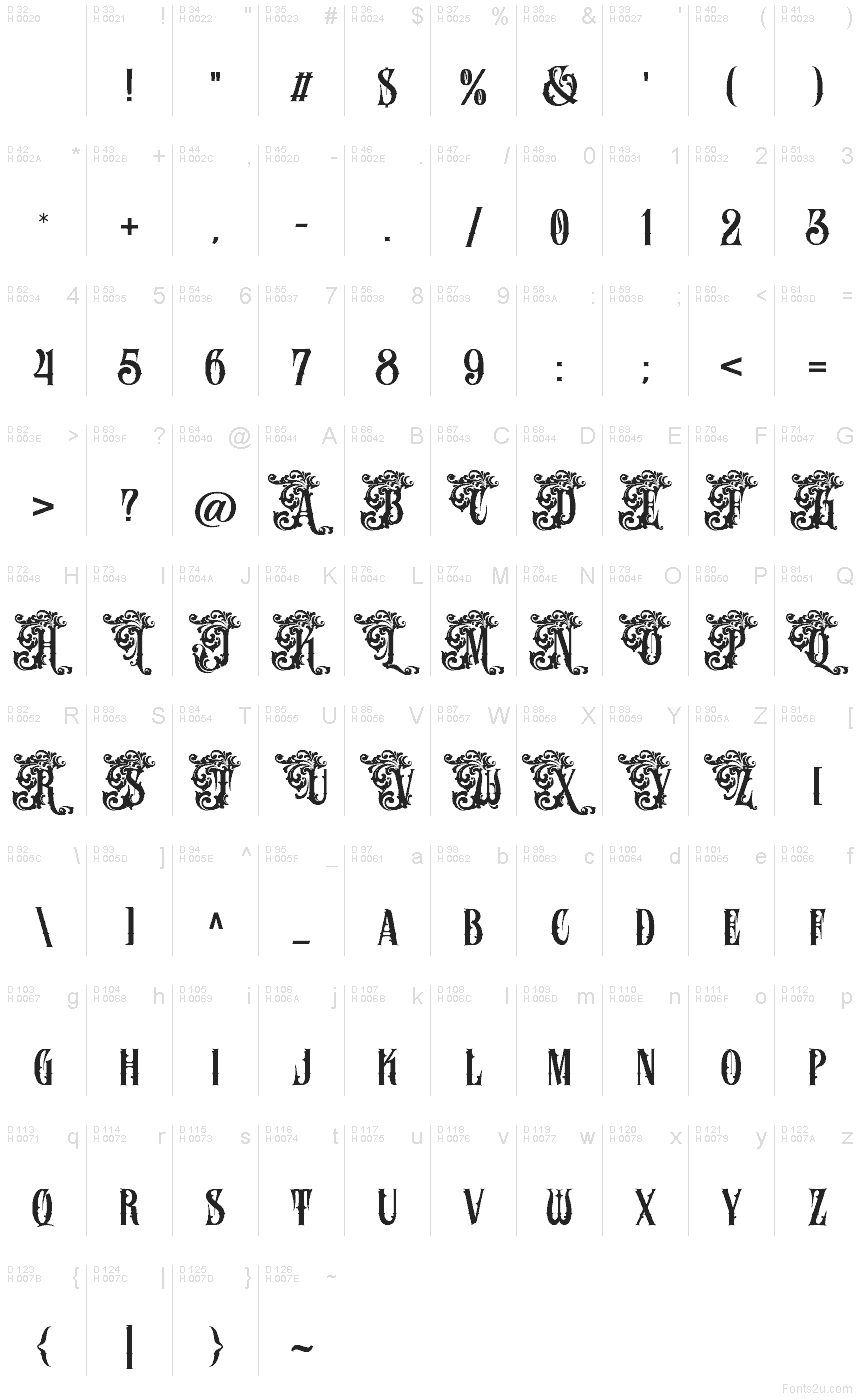
Morvifun Expanded
Morvifun Expanded font by Alit Design is a condensed gothic typeface with a vintage feel and ornate detailing. Its decorative elements add a theatrical aesthetic to the characters of stylistic elegance. Also, the sharp contrasts in the design result in high readability even for extended texts.